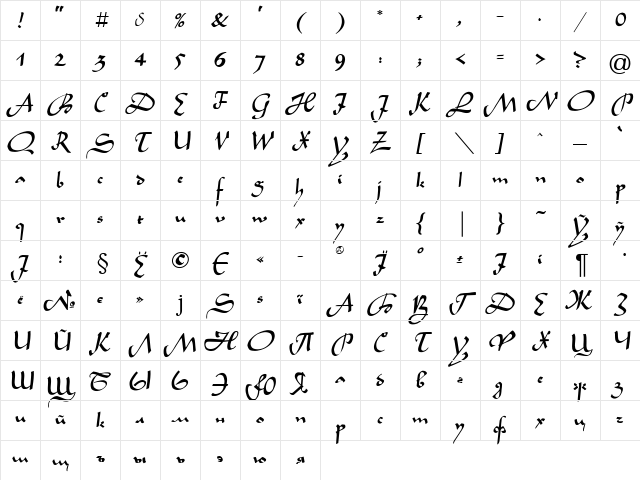
LegendeC Normal
Copyright: Legende (F. H. Ernst Schneidler, 1937) by Ilya V. Zalomakin 12.05.94
Design Context for LegendeC
LegendeC is a composed and adaptable typeface that performs quietly and consistently across a wide range of design contexts.